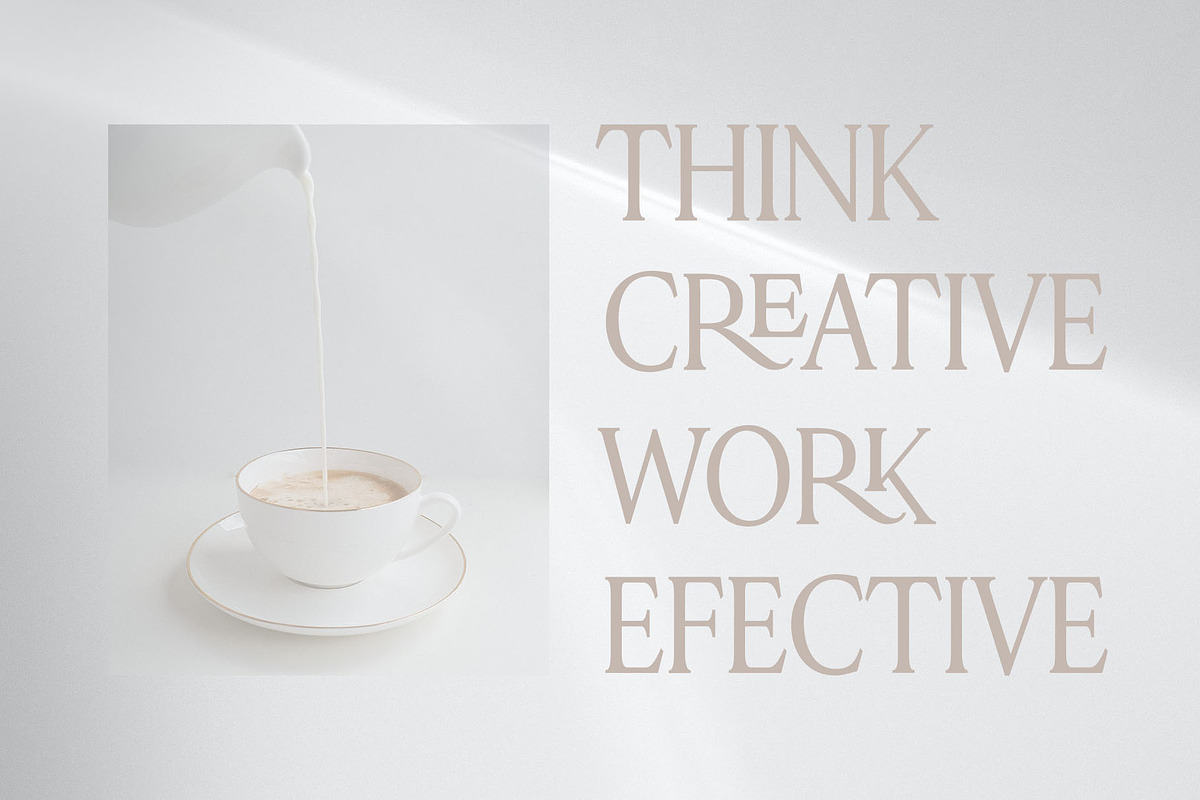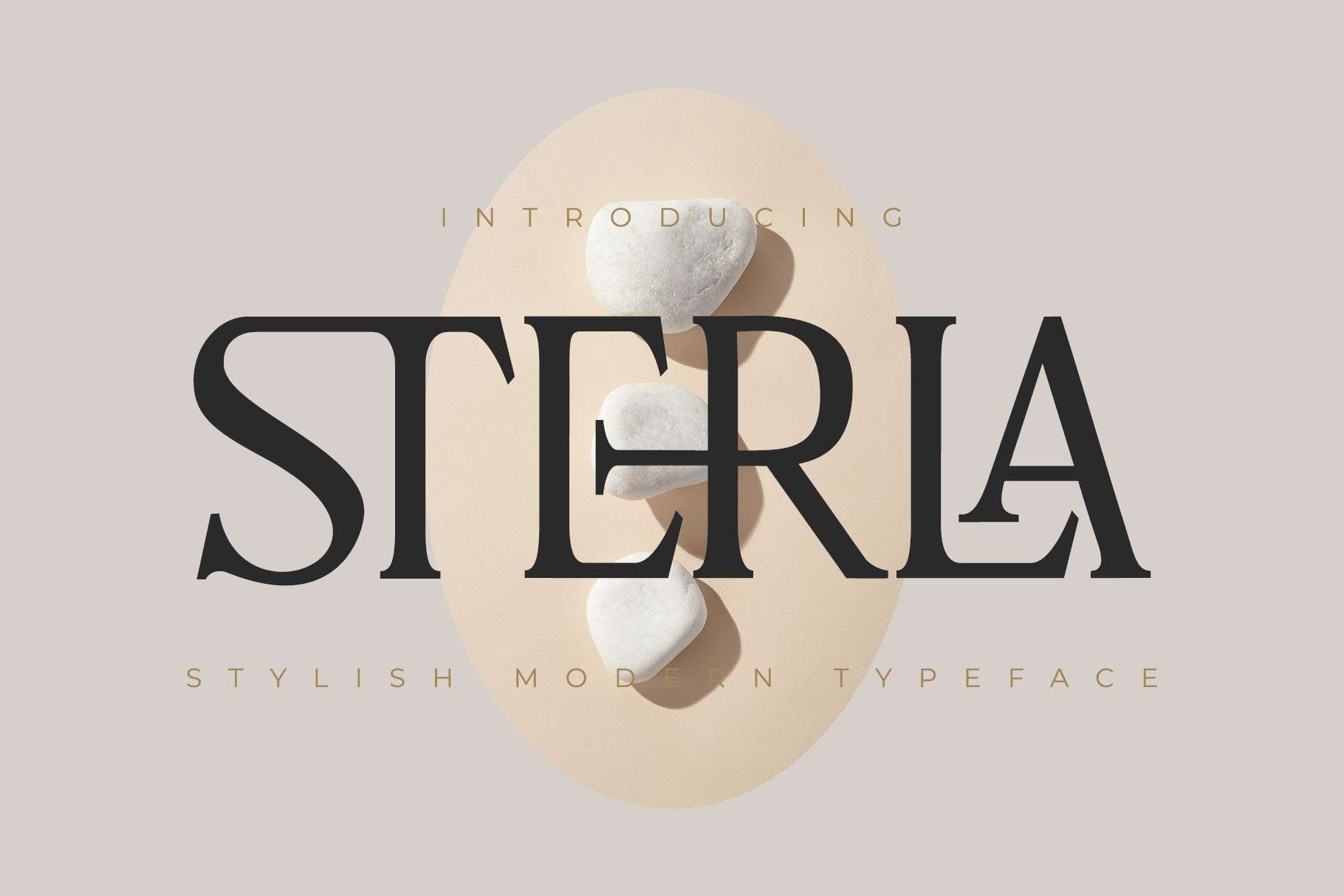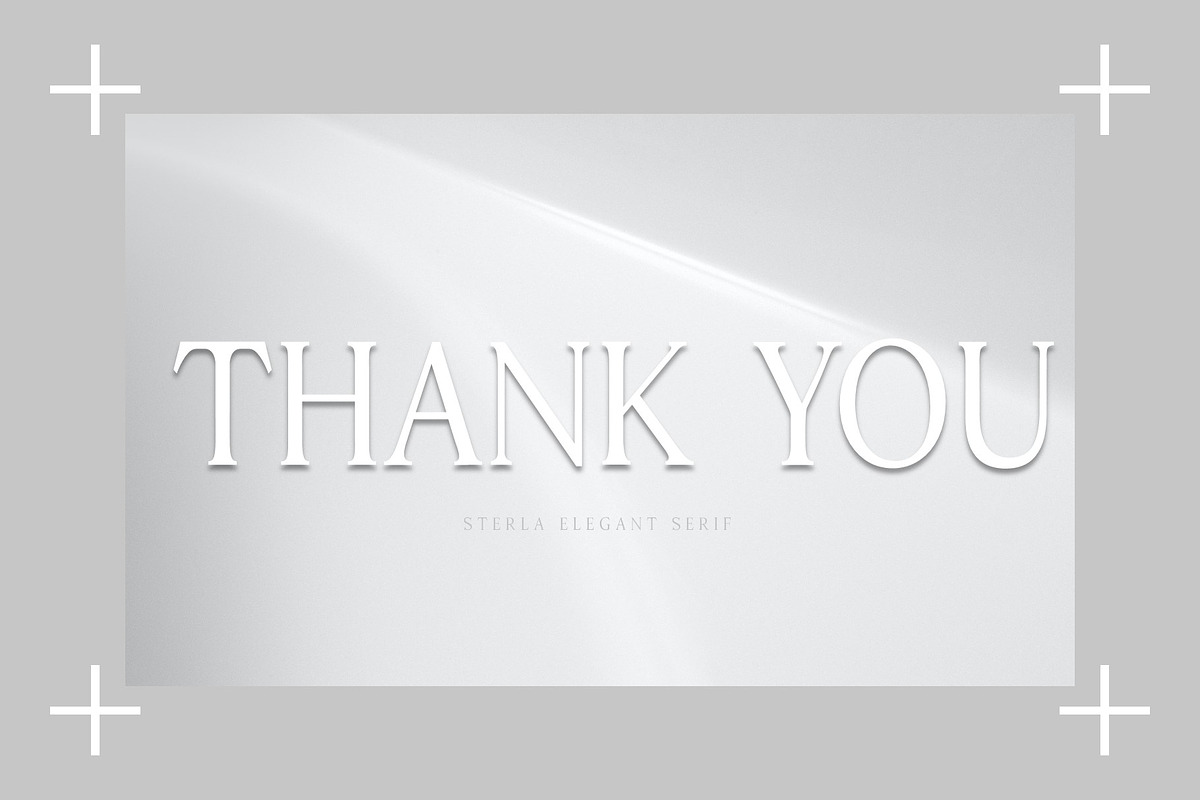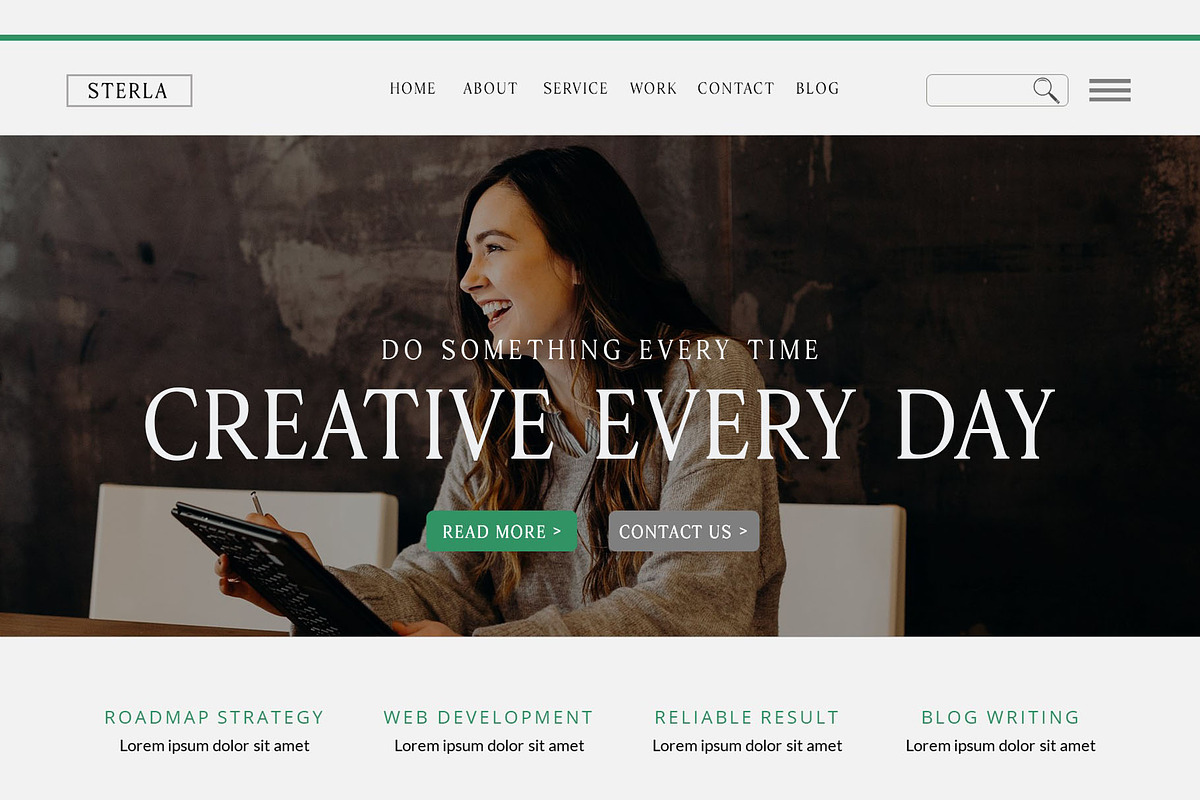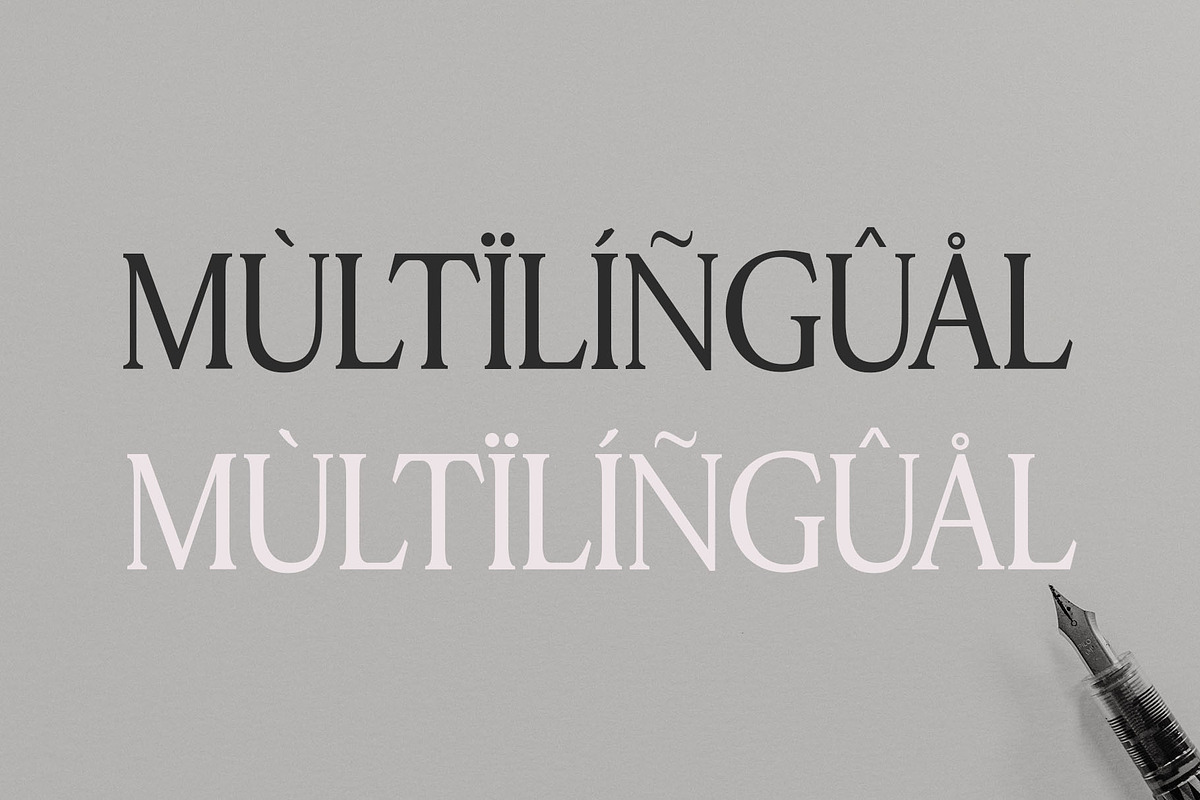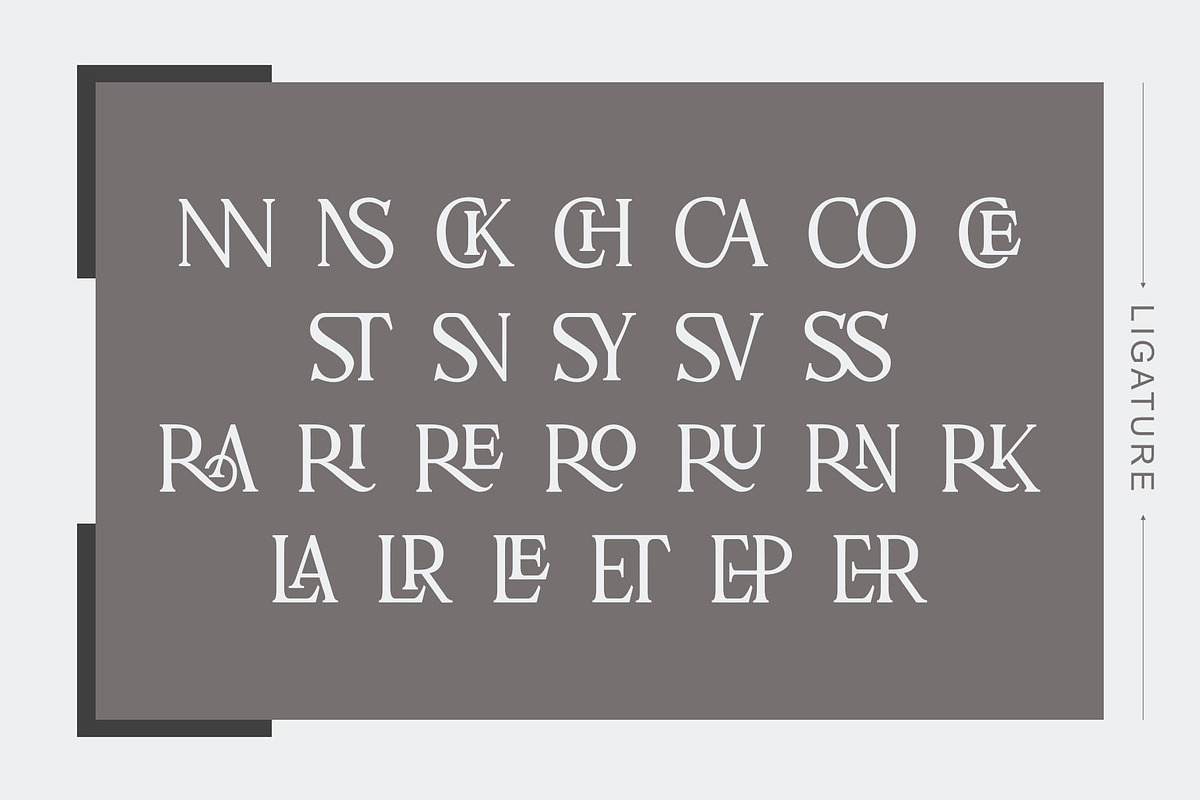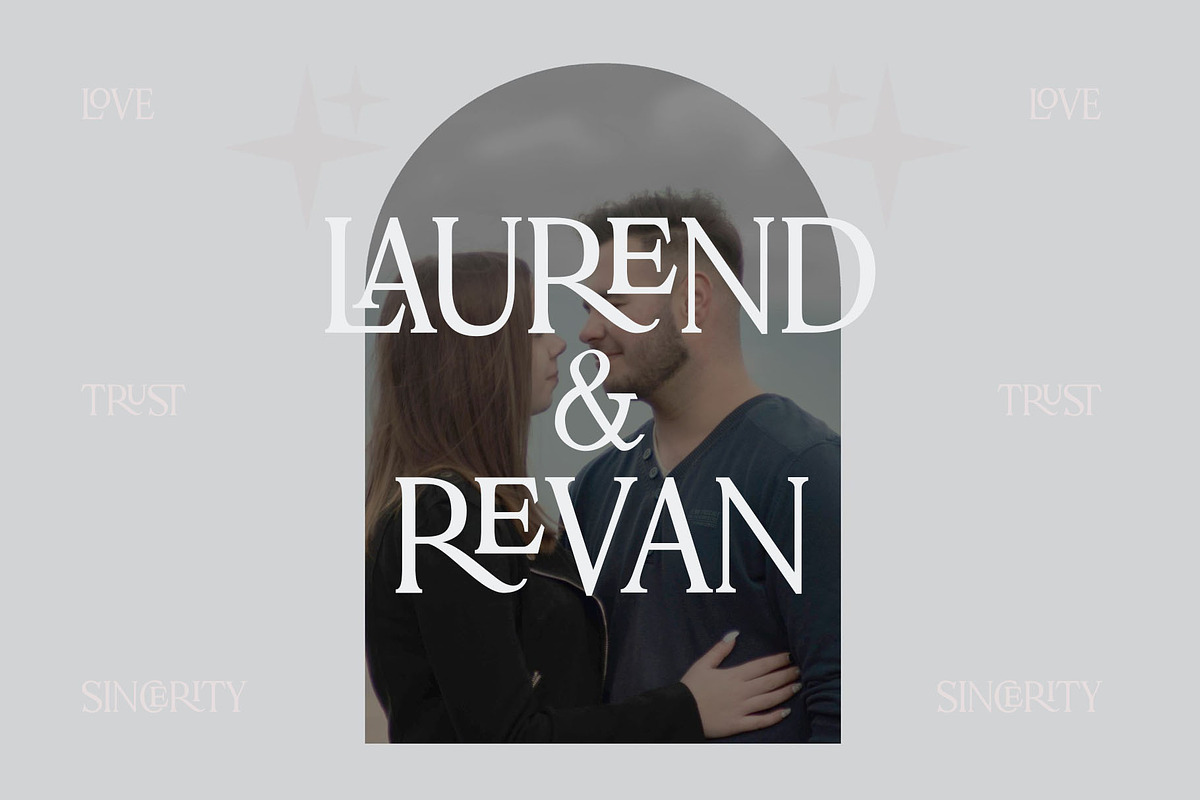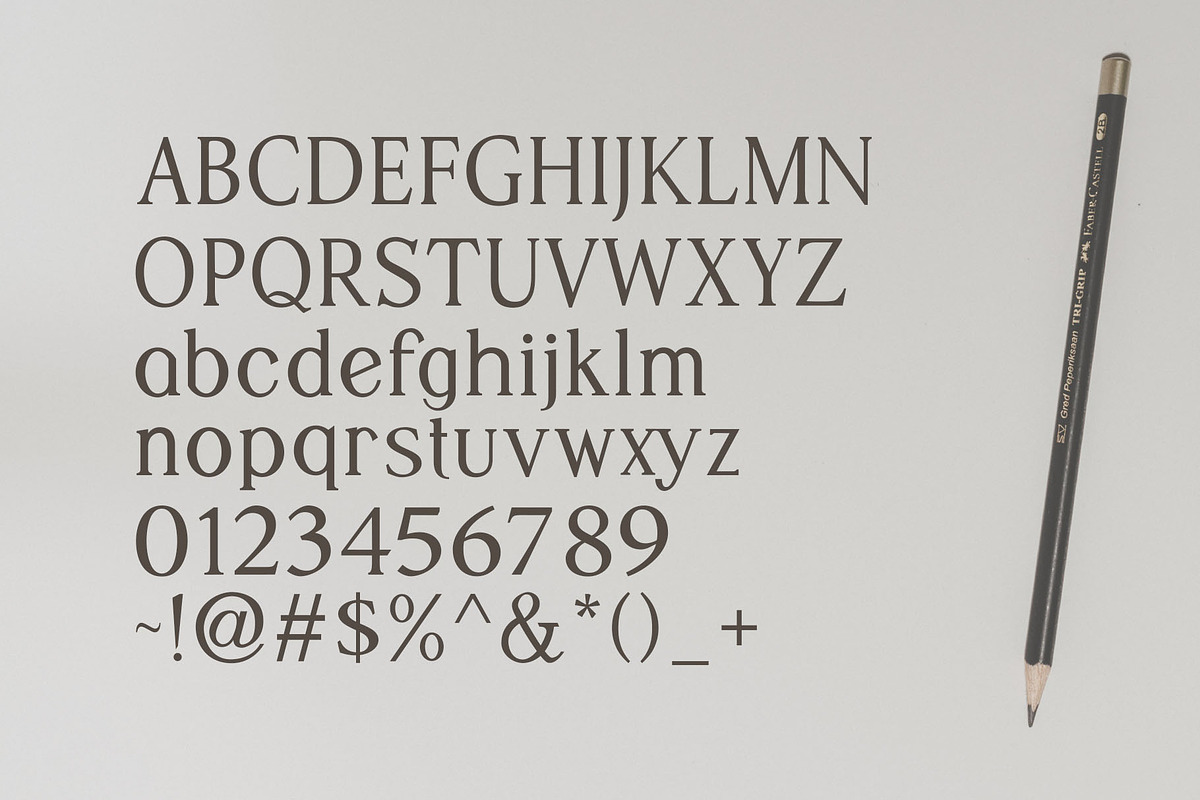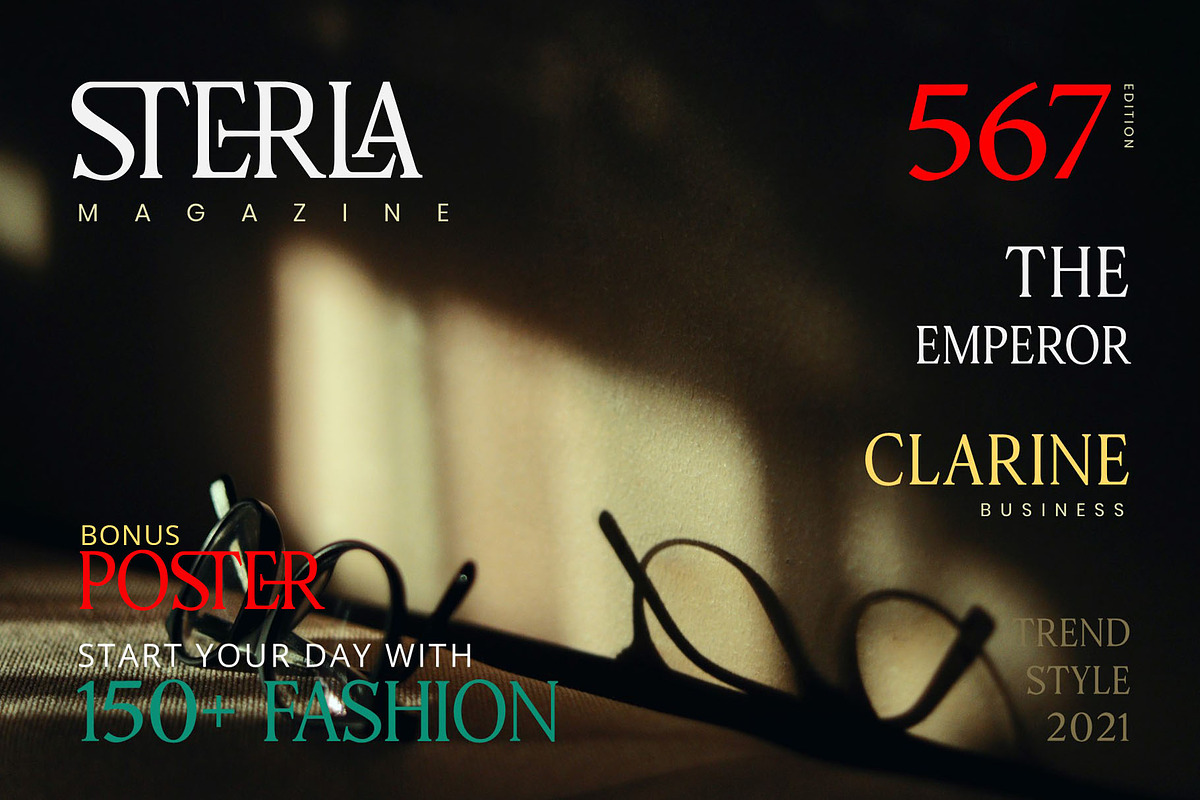
Sterla modern stylish typeface
Introducing 'Sterla' Font:
Sterla is a cool, stylish, and authentic serif font that adds a touch of trendiness and boldness to your creations. This font is designed to elevate your designs, making them stand out with authenticity and flair. With its unique and bold characteristics, Sterla promises to enhance the visual appeal of your projects. Moreover, being PUA encoded, it ensures easy access to all the glyphs and swashes, providing flexibility and convenience in your design work. Make a statement with your typography using the cool and stylish vibes of Sterla.
Ideal for:
- Classy Designs
- Beauty and Fashion
- Elegant Creations
- Web Design Projects
- Social Media Designs
- Magazines
- Ready for Creative Expression
- Immaculately Crafted Letters